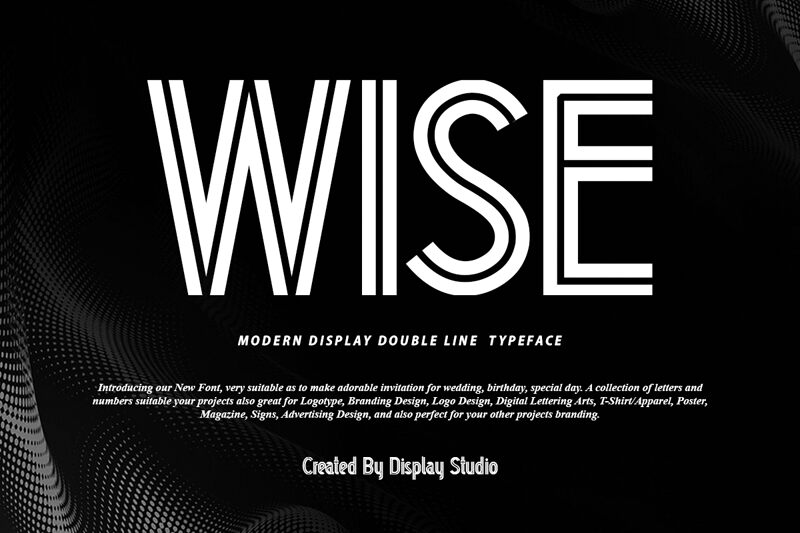
WISE
Introducing WISE, a modern display double line font by Display Studio. At just a narrow width, this chic font is perfect for creating bold logos, captivating titles and stylish designs. It's also great for making eye-catching messages stand out on social media posts and websites.